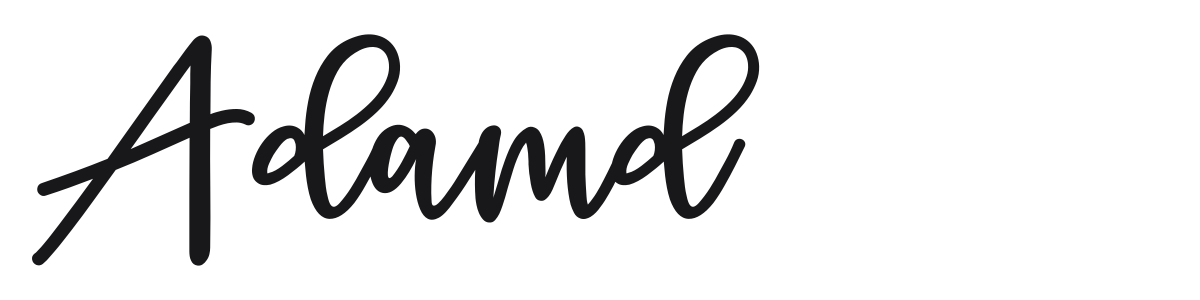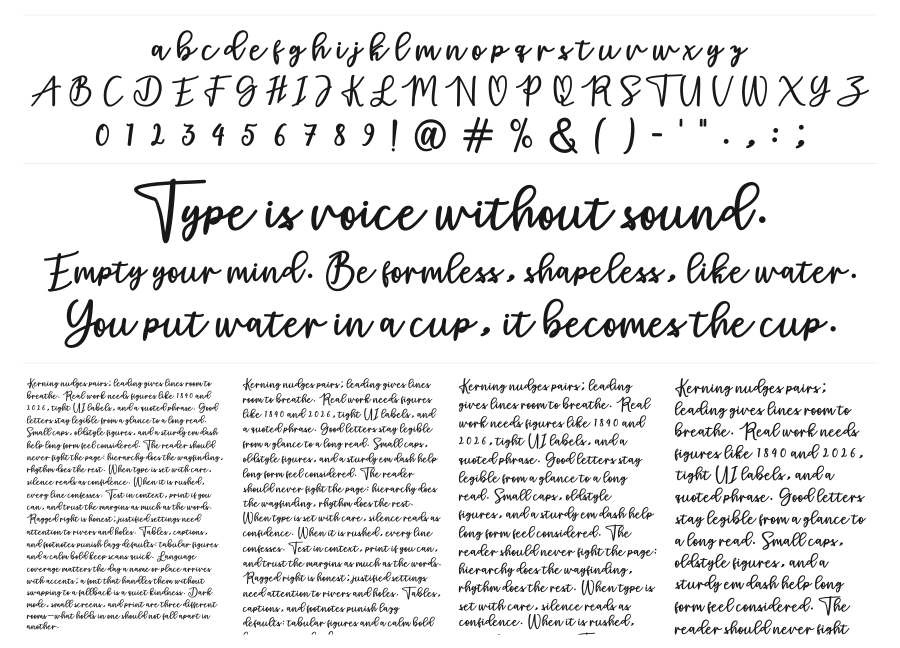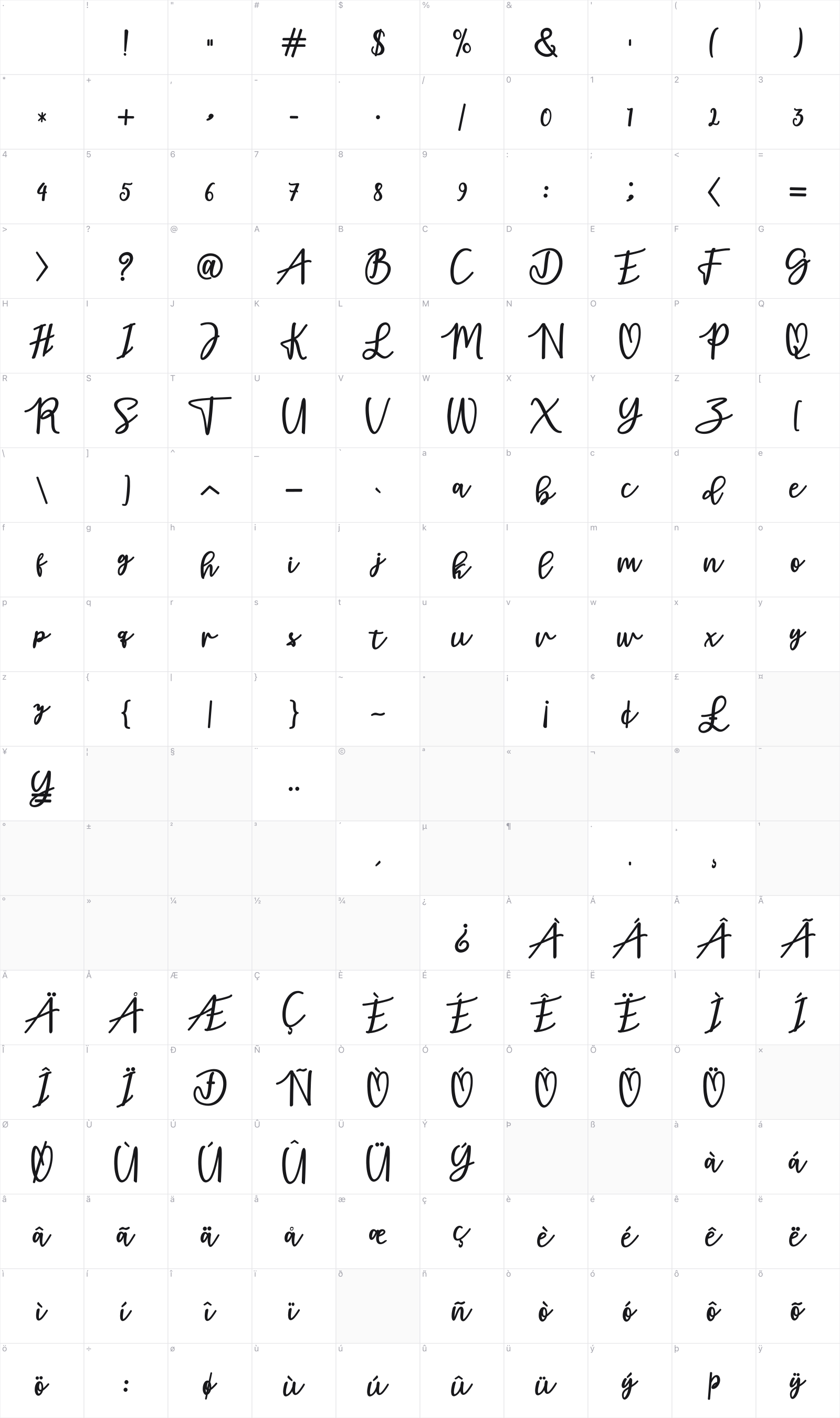
Adamd
Adamd is a casual connected script with a relaxed, handcrafted feel that sits somewhere between a brush pen and everyday handwriting. The letters flow smoothly from one to the next with a gentle bounce and moderate stroke contrast that keeps things lively without feeling overdone. It suits branding, packaging, and social content where a warm, approachable voice is needed.